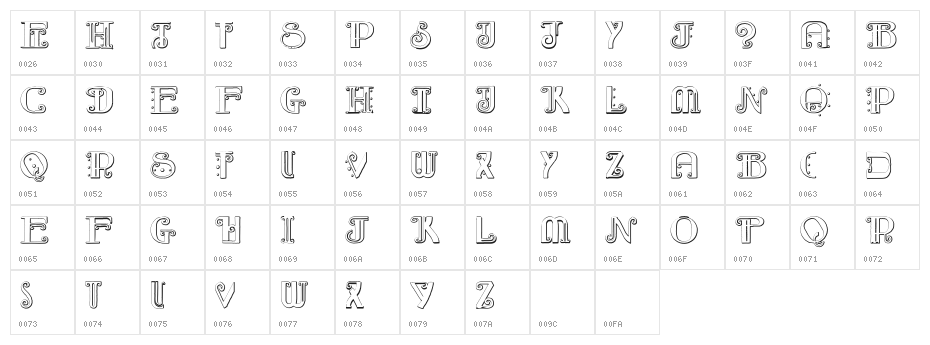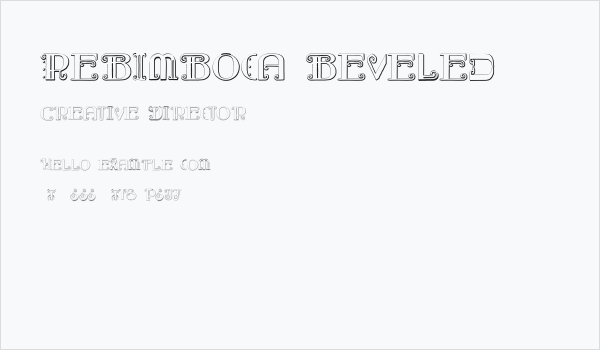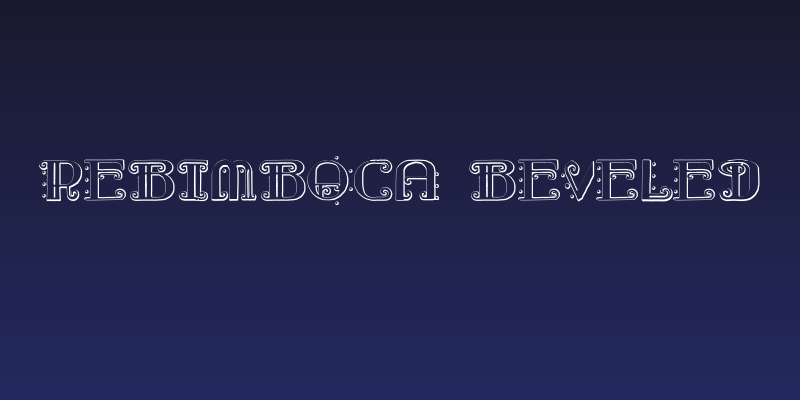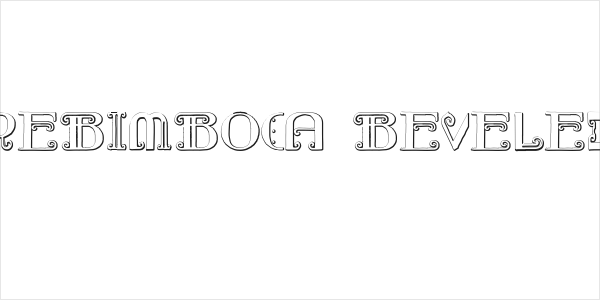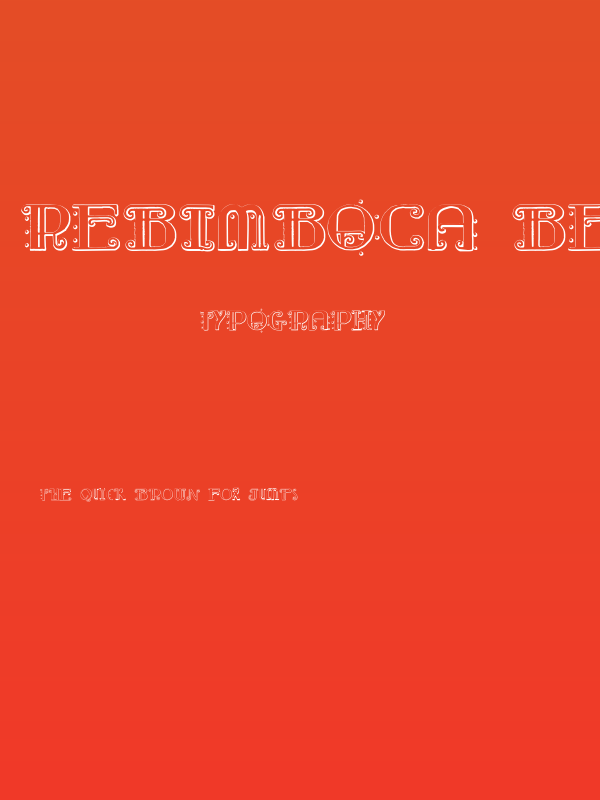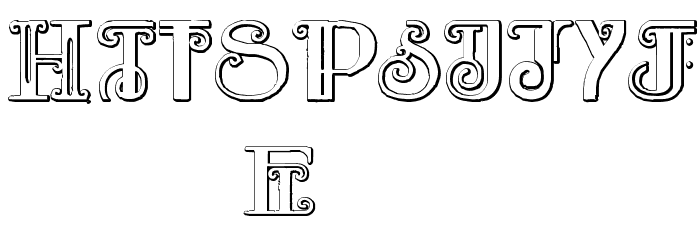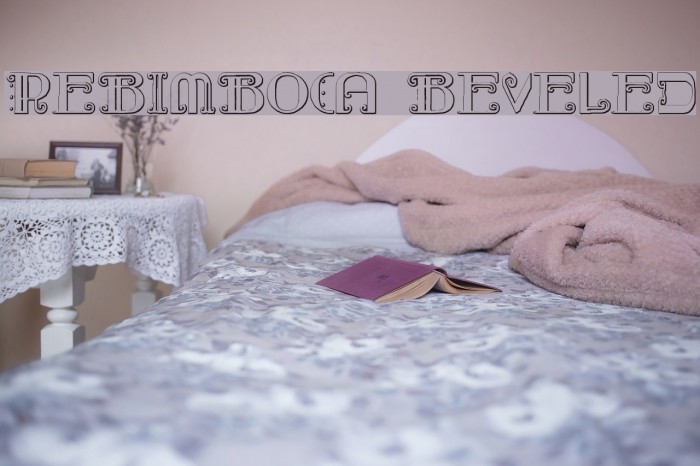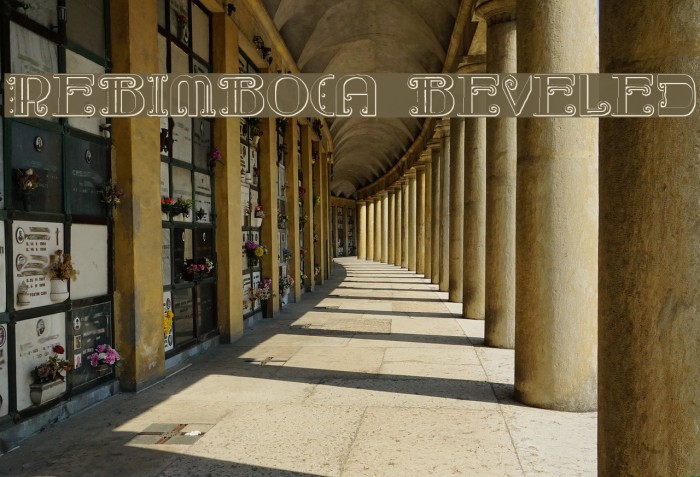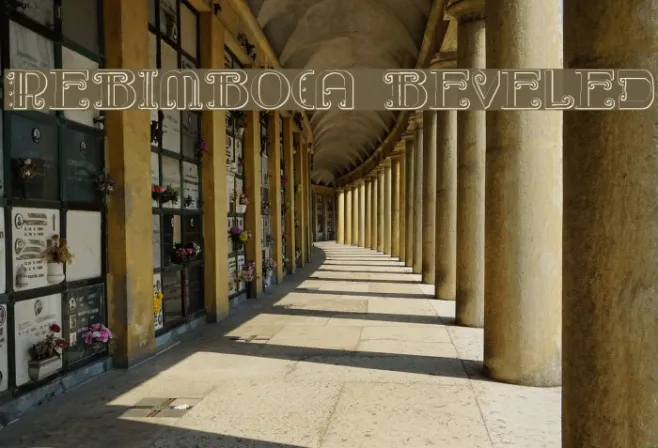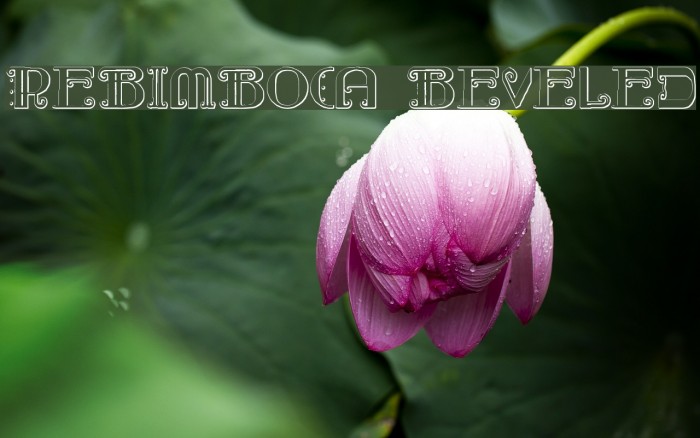
Rebimboca Beveled Font
Rebimboca Beveled Description
This font features a unique and decorative style with intricate detailing and beveled edges. The characters are embellished with ornamental elements, giving them a distinct and artistic appearance. The uppercase letters are bold and eye-catching, making them suitable for standout designs. The font combines traditional serif elements with a modern twist, incorporating swirls and dots that add a playful yet sophisticated touch. Its elaborate design makes it ideal for creative projects that require a touch of elegance and flair.
| Proposed Projects | Ideal for use in branding, posters, invitations, and any project that requires a decorative and artistic touch. |